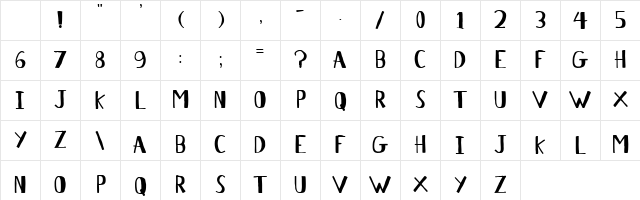
Antelope H Regular Free Font
Antelope H Regular
Design Context for Antelope H
Antelope H is a composed and adaptable typeface that performs quietly and consistently across a wide range of design contexts.